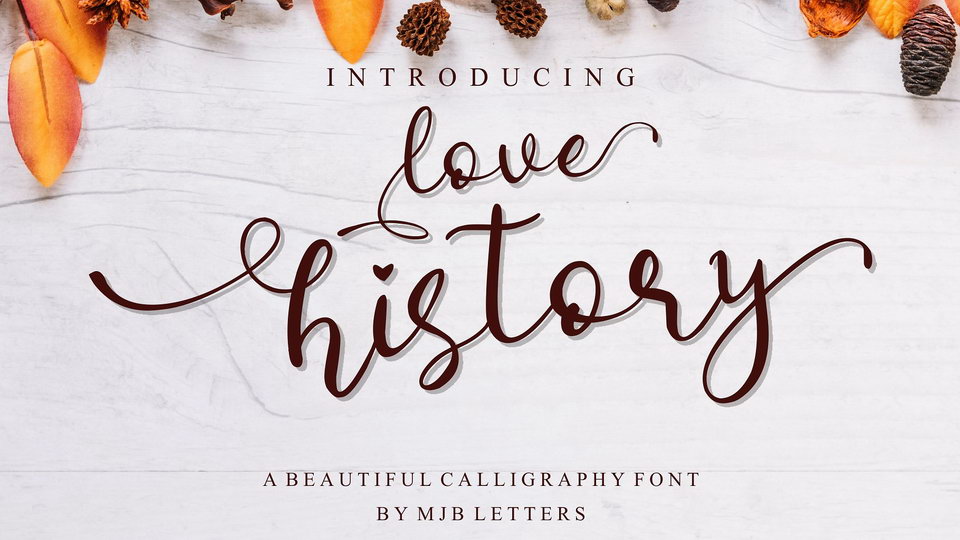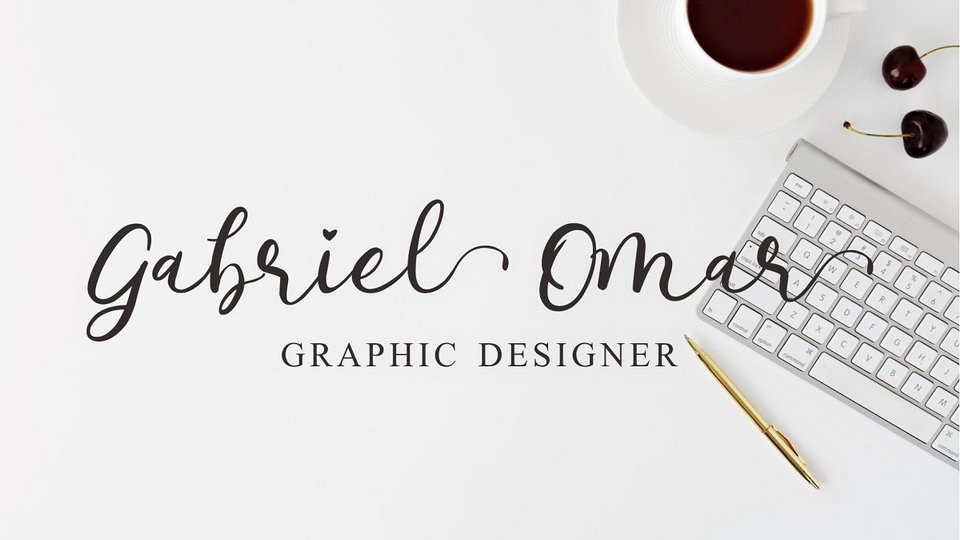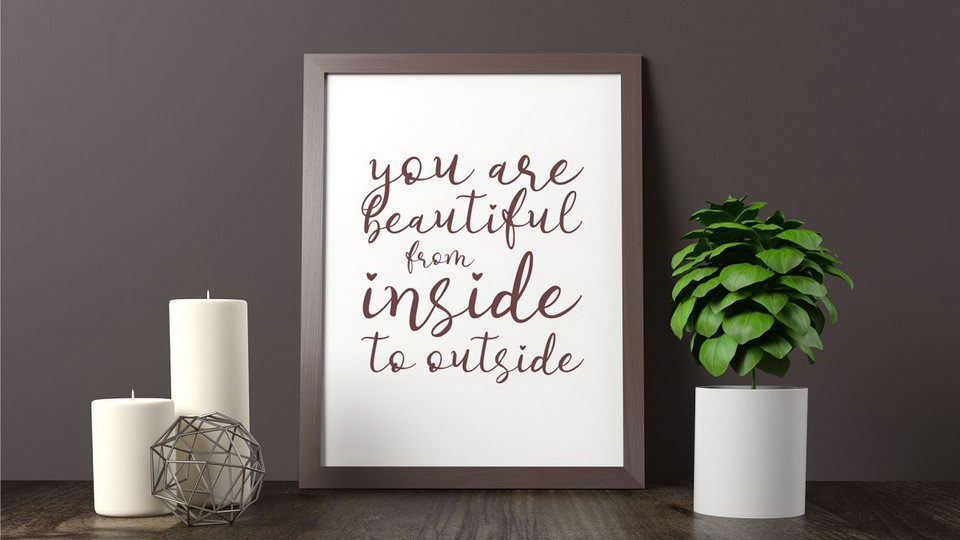
Love History is a lovely modern script font, made very carefully to produce an original hand touch so that it can give a natural impression on the design.
Love History font is very suitable for invitations, logos, brochures, business cards, photography, and for other design needs.